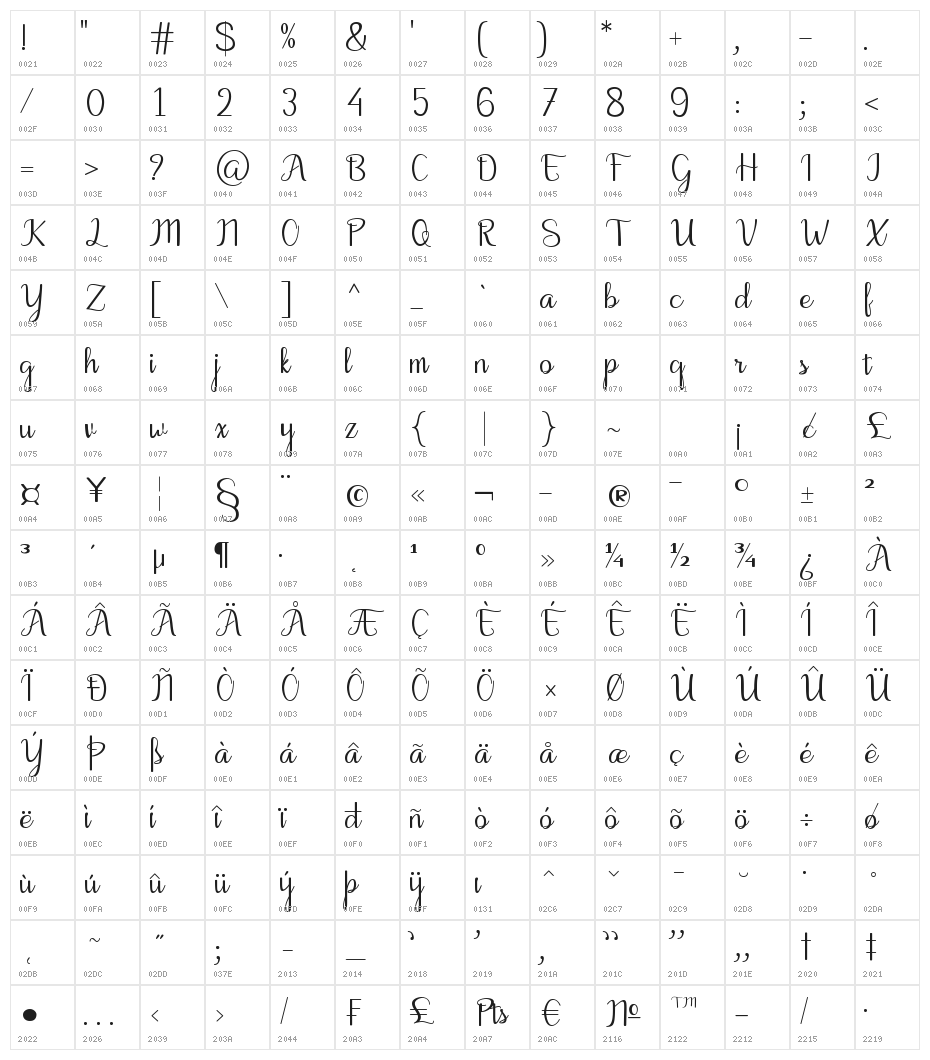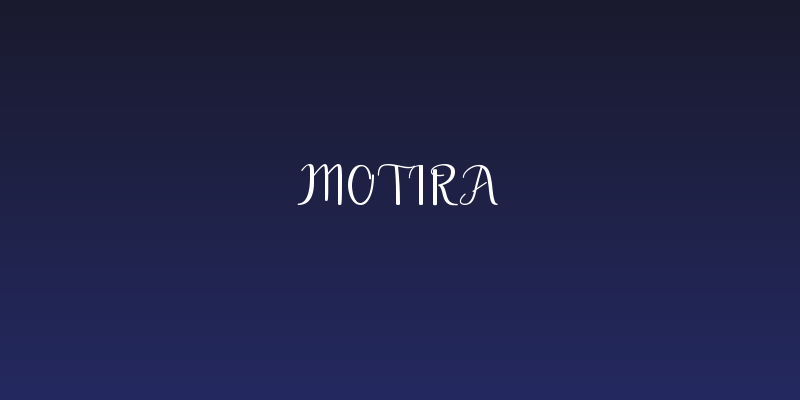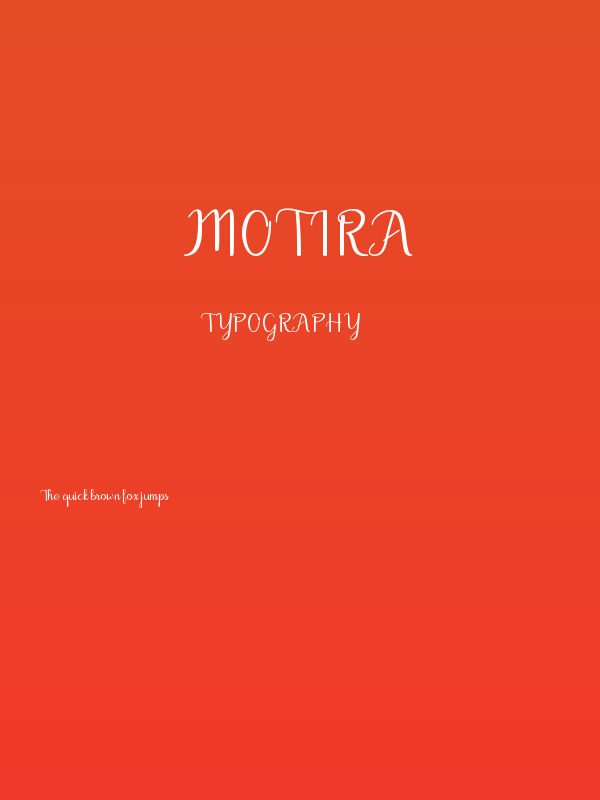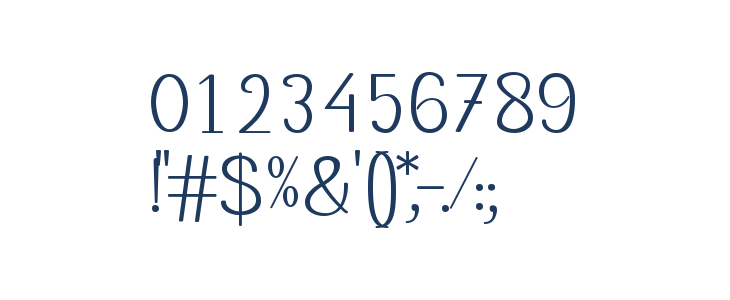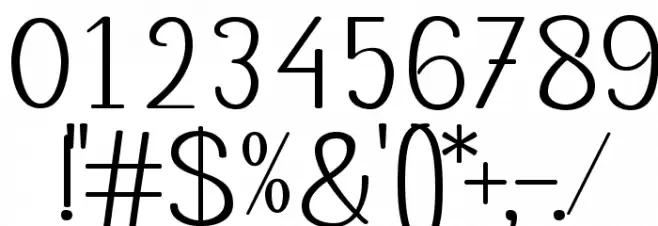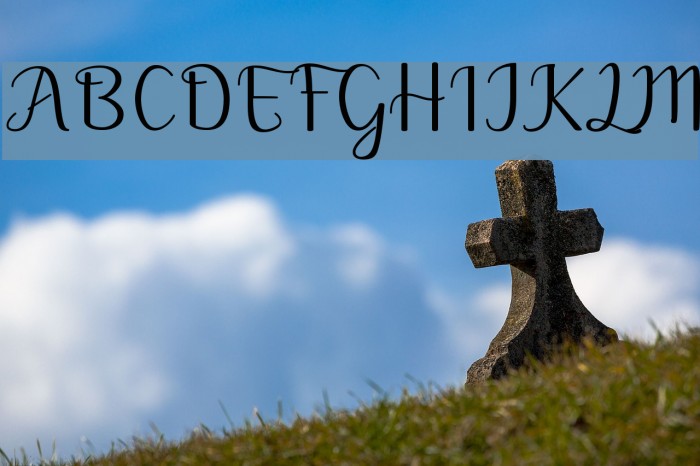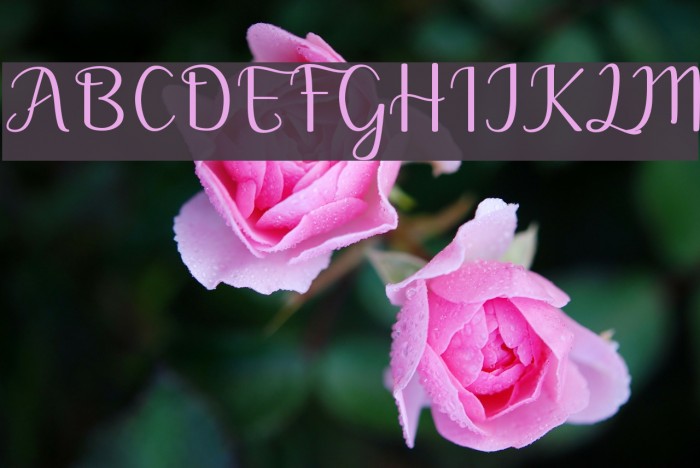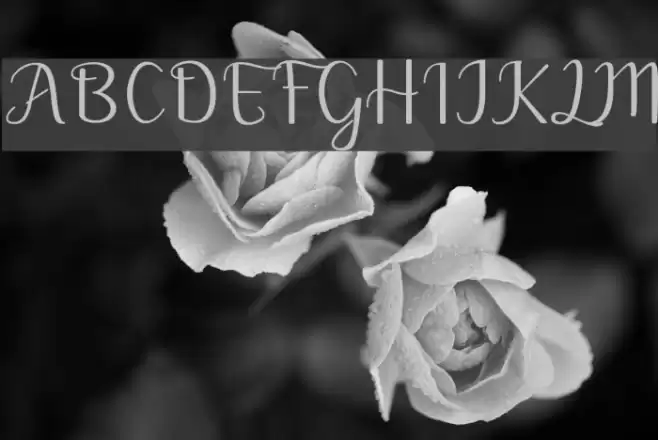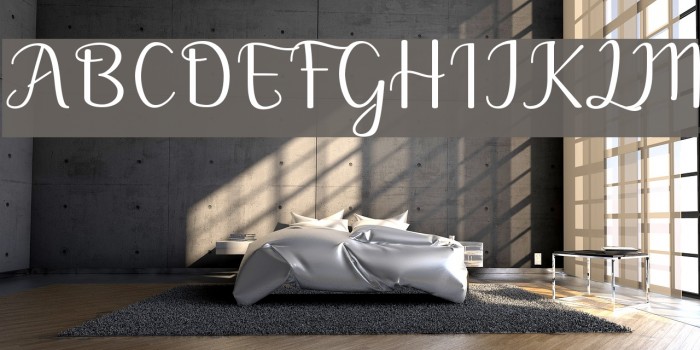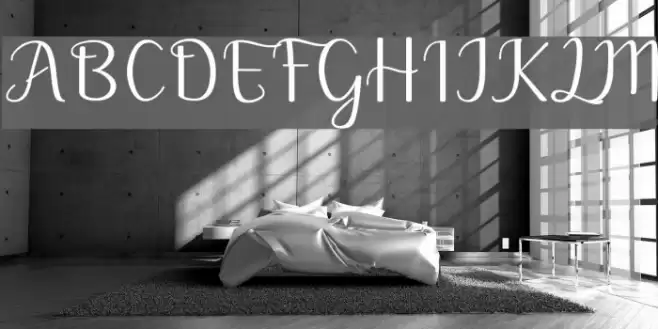
Motira Font
Motira Description
This font exhibits a charming and playful script style, characterized by its fluid and connected letterforms. The uppercase letters are elegantly curved with a slight slant, giving them a whimsical yet sophisticated appearance. The lowercase letters maintain a consistent flow, with some characters featuring loops and swashes that enhance the font's decorative nature. The numerals are clear and legible, complementing the overall style with their rounded forms. Special characters are designed to match the playful aesthetic, making this font suitable for creative and expressive projects.
| Proposed Projects | Ideal for invitations, greeting cards, branding, and creative design projects that require a touch of elegance and playfulness. |